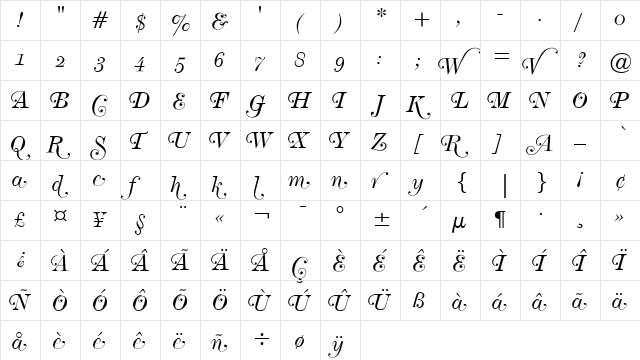
DeVinneBT Italic
Design Context for DeVinneBT Typeface
DeVinneBT offers clean, dependable letterforms without strong stylistic allegiance, making it a practical choice for designers who need flexibility. The slanted form adds forward momentum and visual energy.